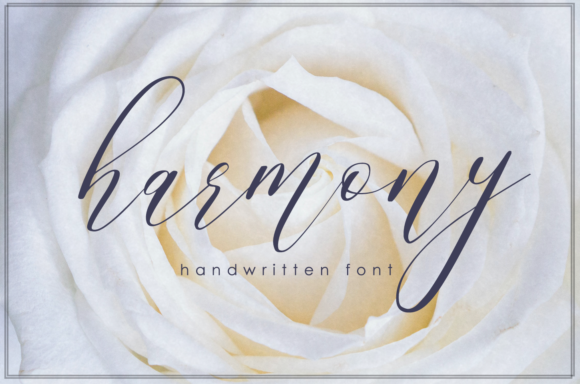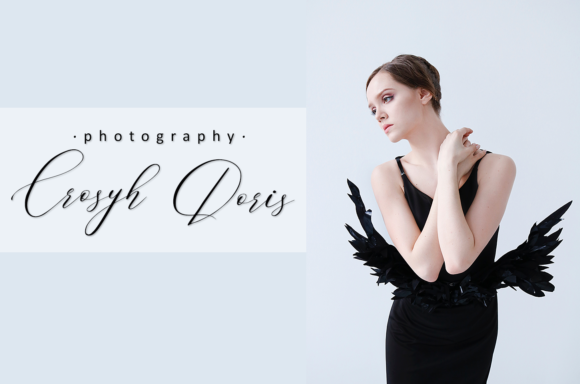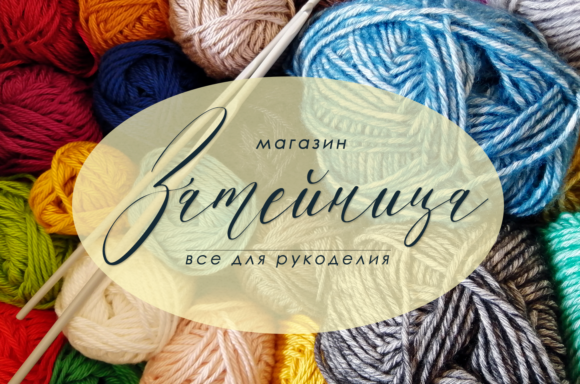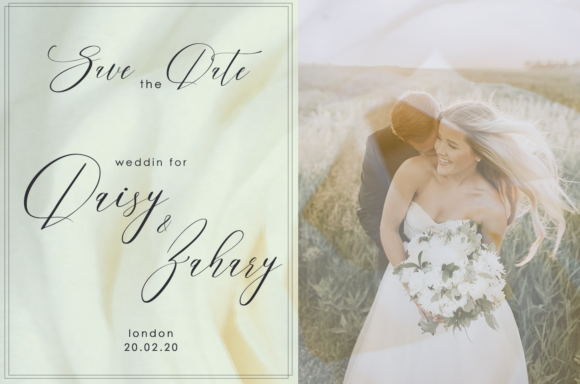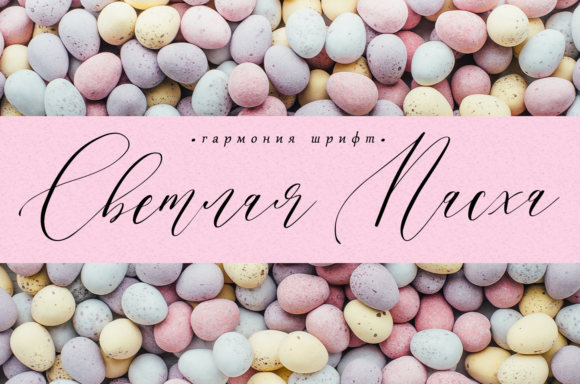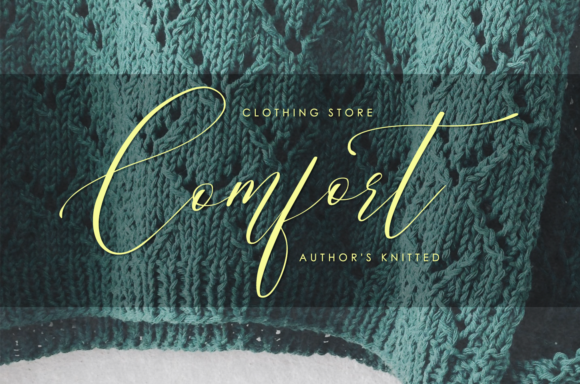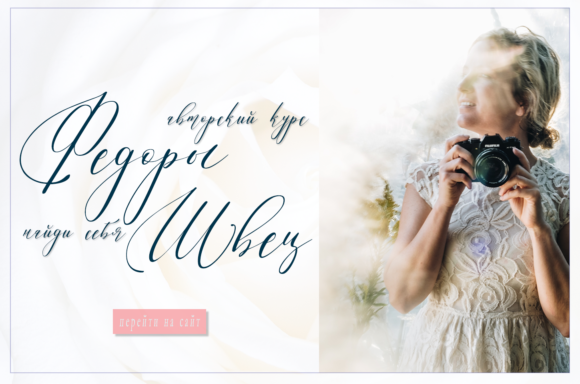
Harmony Font
About Harmony Font
Harmony is a beautiful script font. It features gorgeous swashes and ligatures that make this script incredibly versatile. Harmony is the perfect font for making original and outstanding wedding invitations, beautiful stationery and much more!